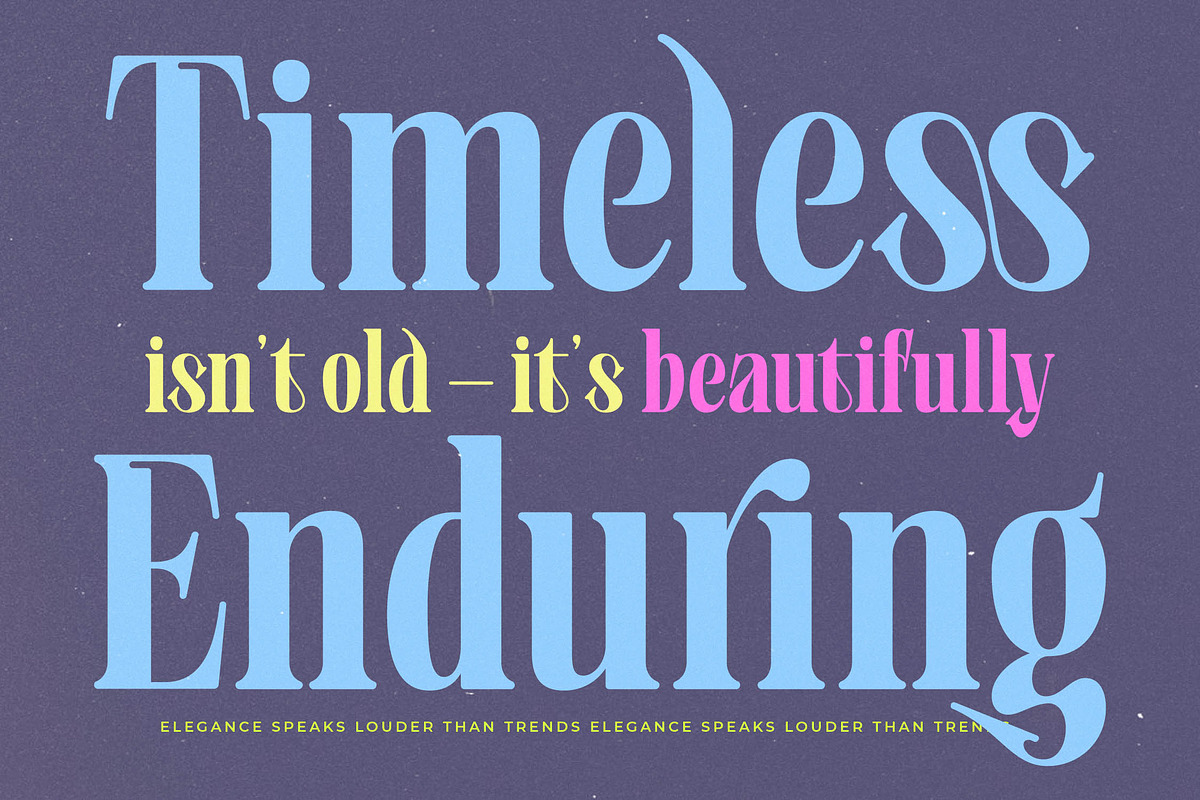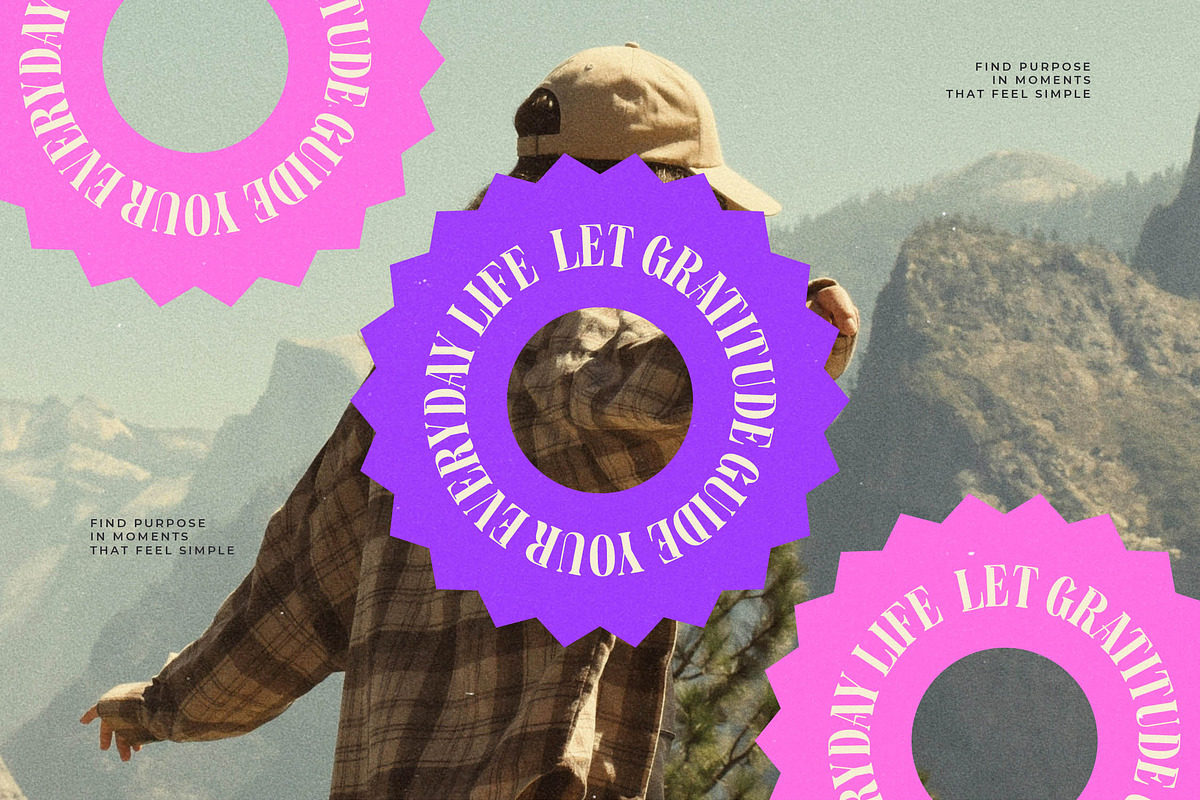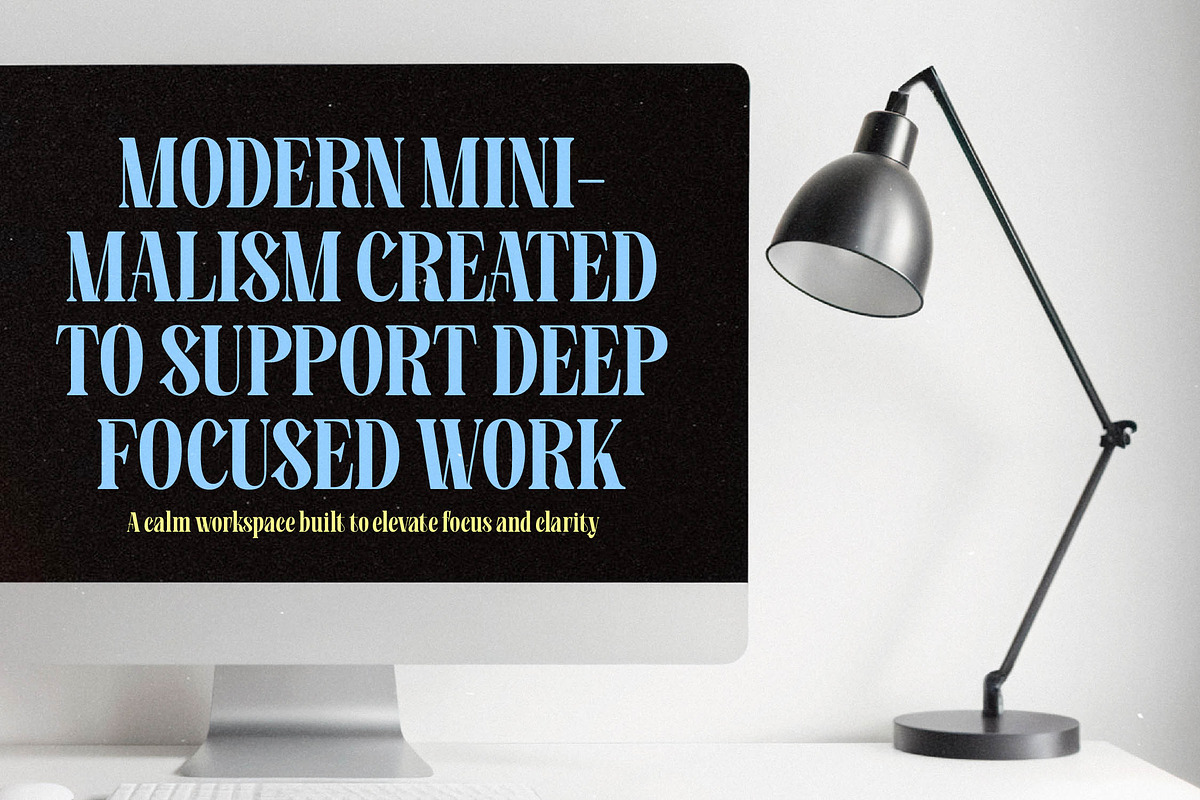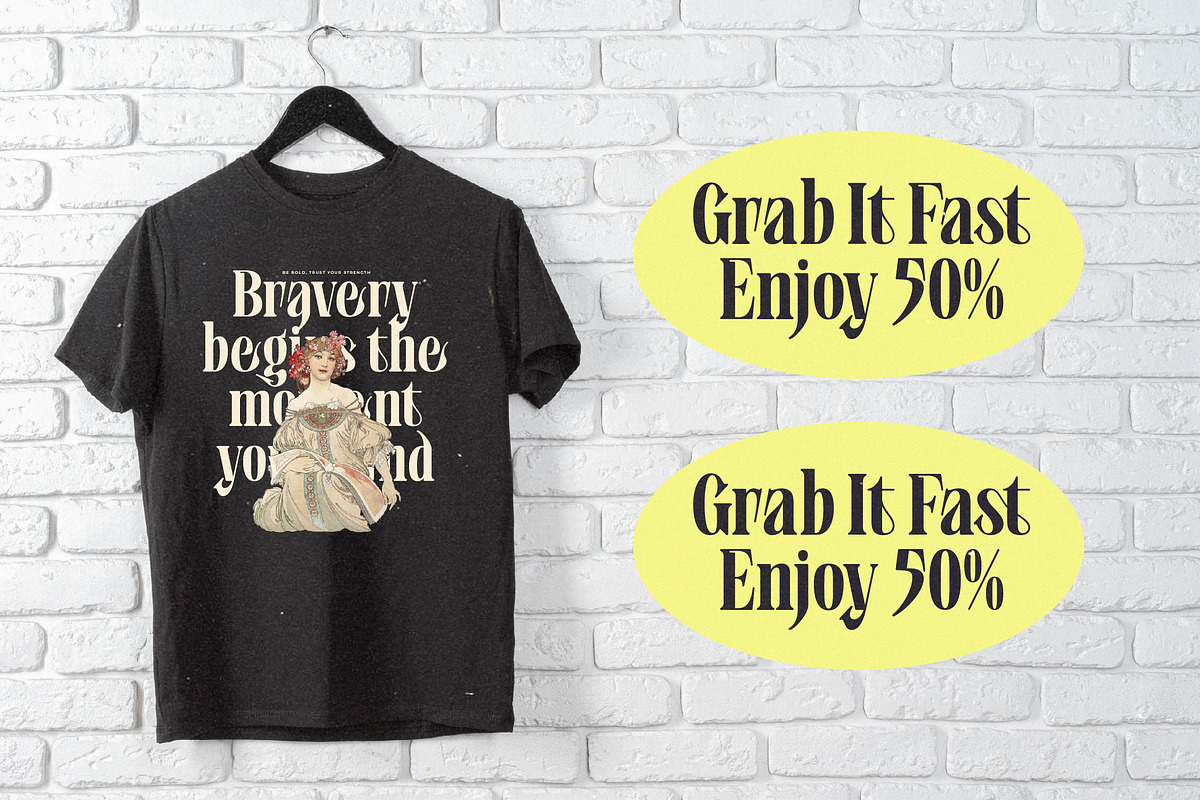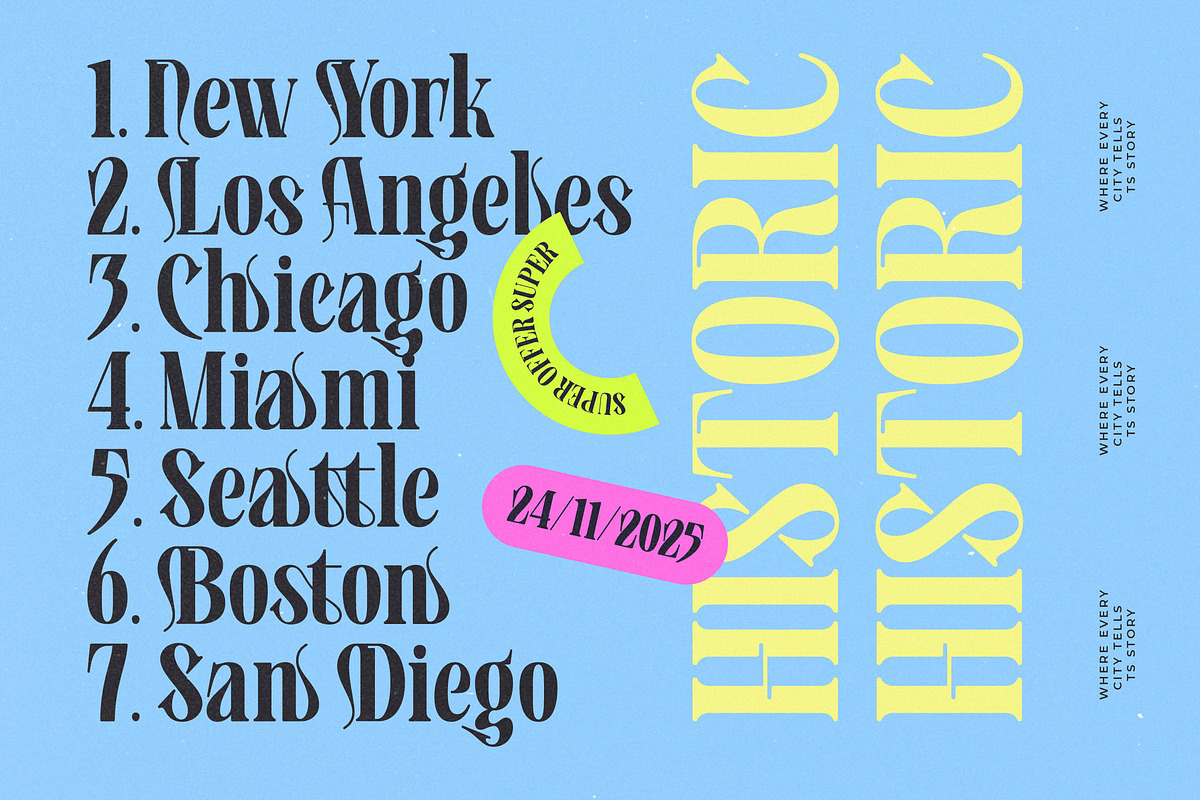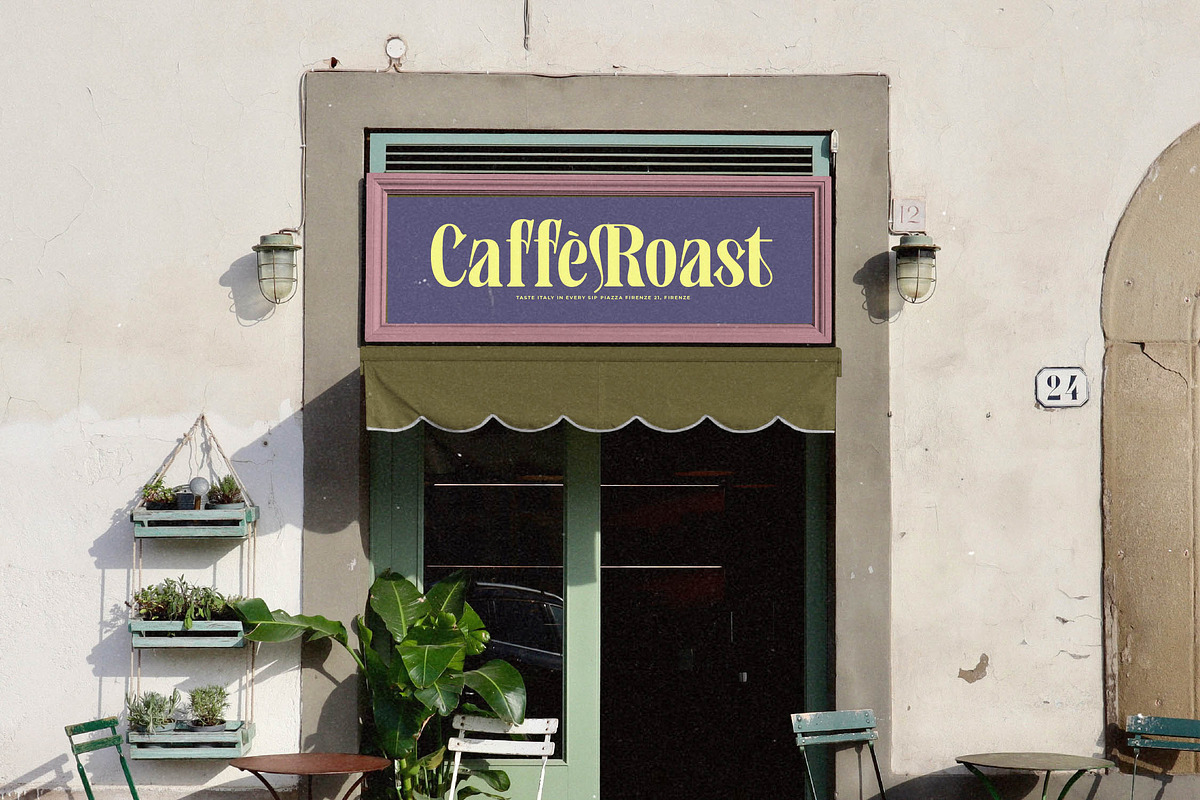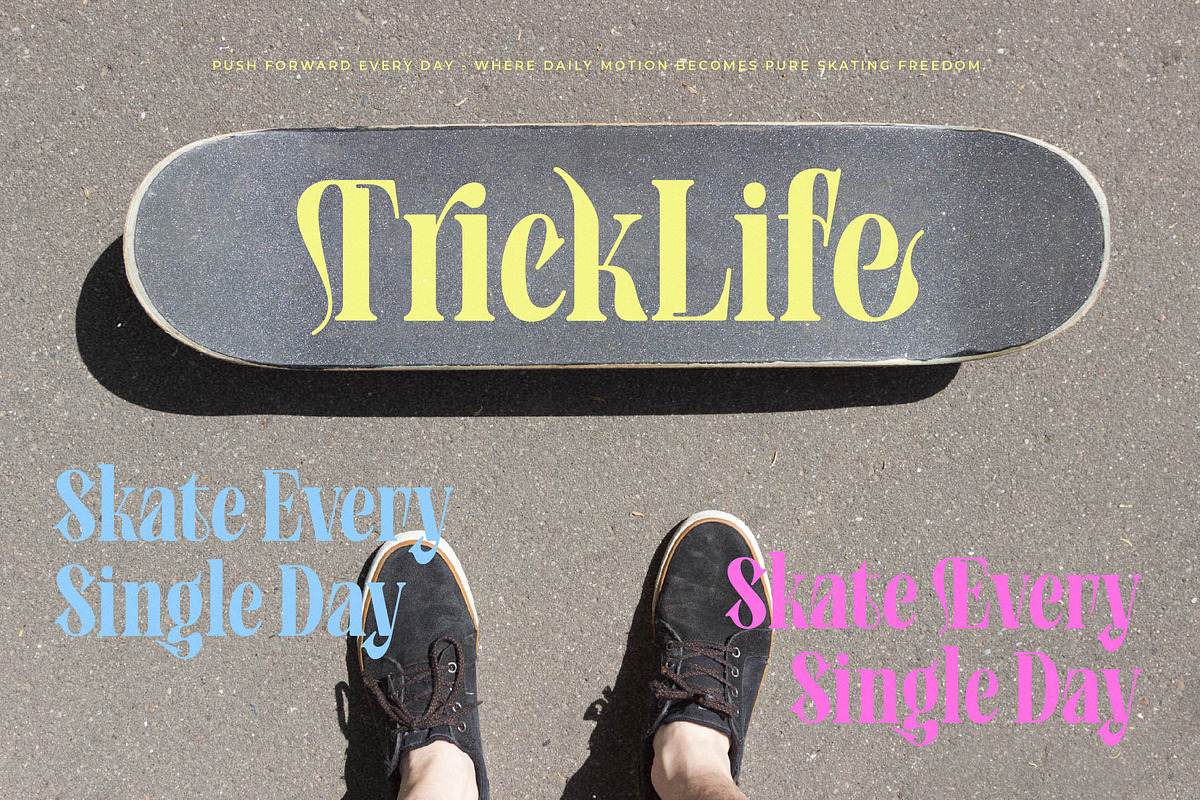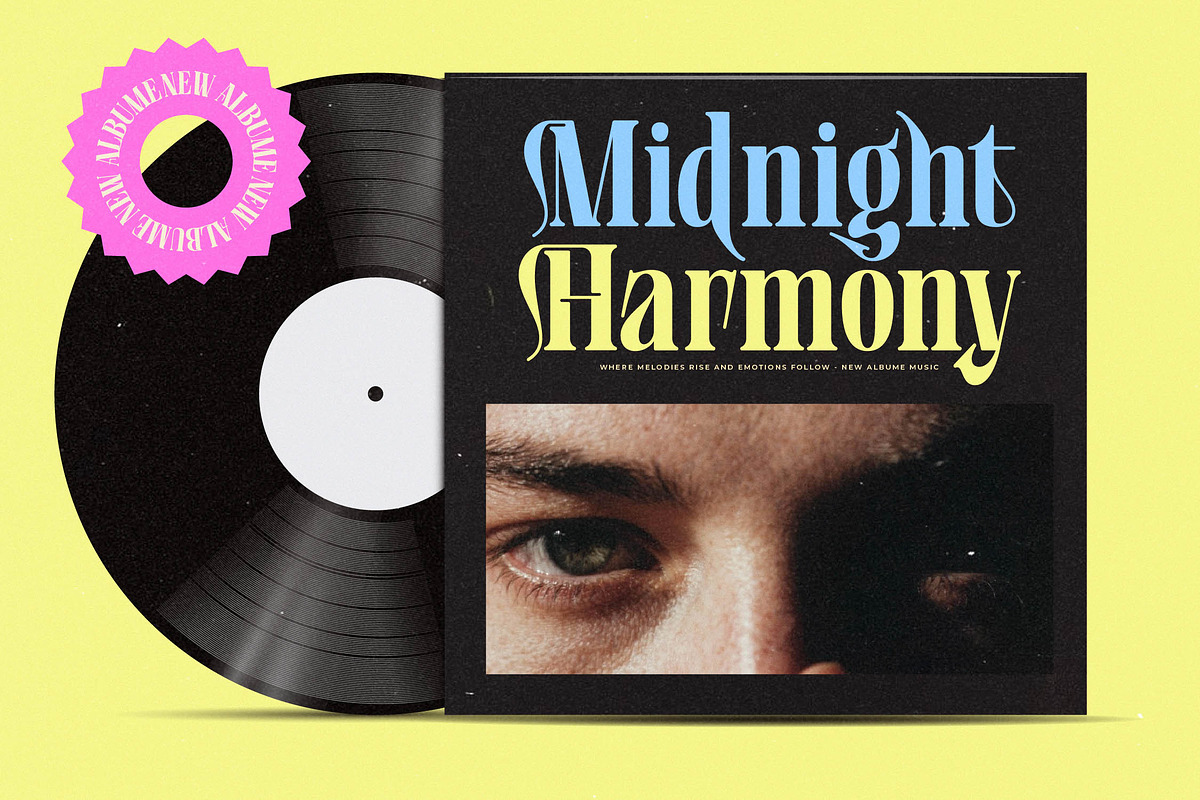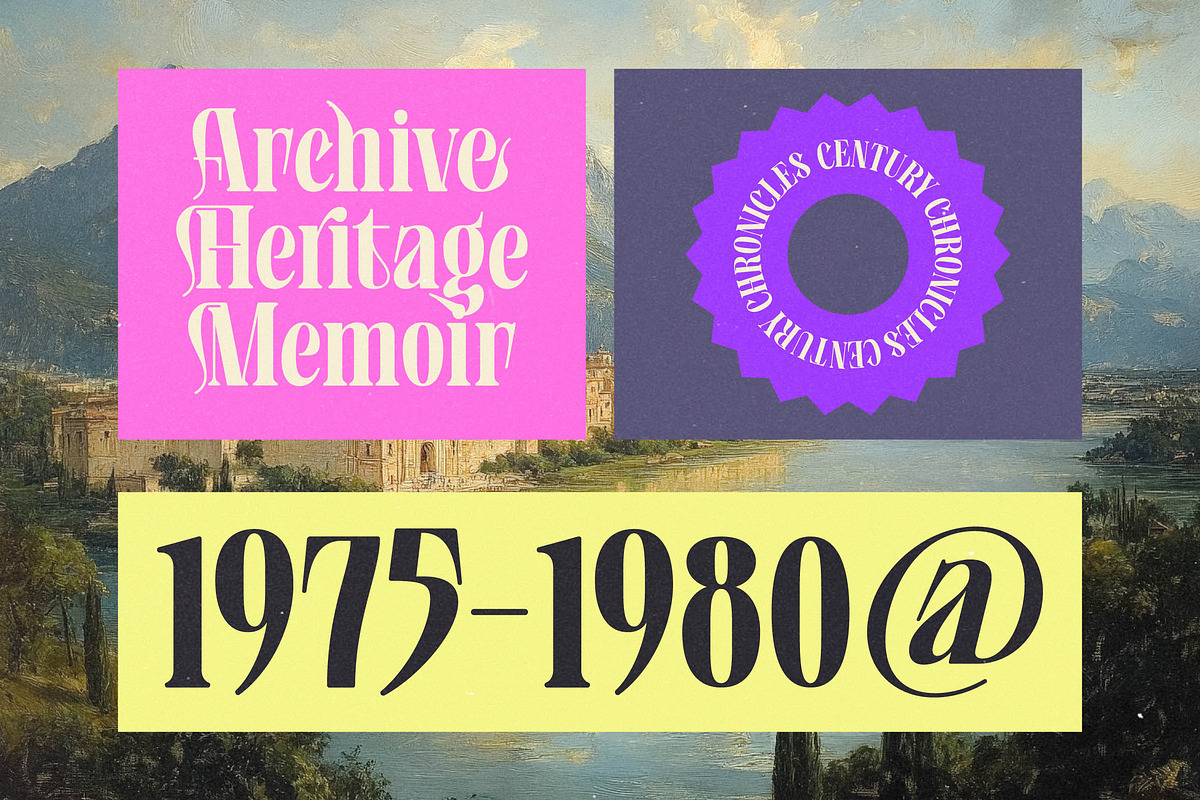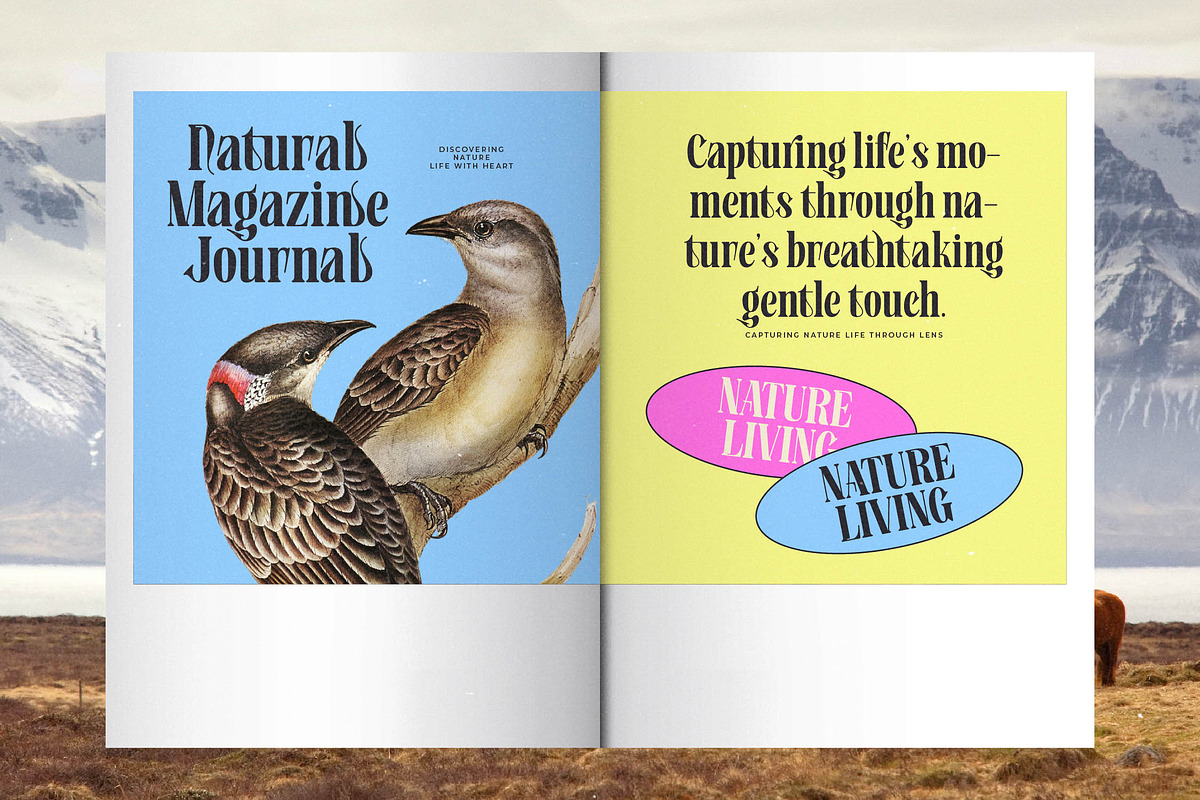
Bistoric Historic Modern Serif
Bistoric Historic invites you into a world where classic elegance meets contemporary flair, offering a visual experience that is as memorable as it is beautiful. This font is a masterclass in balance, blending timeless serif foundations with experimental flourishes that demand attention.
Inspired by the golden era of editorial design and the lush textures of botanical illustrations, this typeface captures a spirit of natural sophistication. It draws from the heritage of high-fashion magazines and the tactile feel of vintage letterpress, creating a bridge between the past and the present.
With its modern serif display aesthetics and high-contrast serif strokes, this font exudes a sense of luxury typography that is perfect for high-end projects. Every character is crafted for branding impact, providing an editorial font solution that speaks with a voice of refined authority and creative confidence.
Perfectly aligned with the modern serif trend, this typeface answers the call for character-driven typography in a sea of minimalism. It sits at the forefront of editorial display fonts, offering designers a tool that is both fashionable and functional for the current market's love for "new vintage" styles.
This versatile typeface is the ultimate choice for logo design, branding, and editorial layouts that require a touch of class. From sophisticated packaging concepts to romantic wedding stationery and high-end fashion lookbooks, it adapts seamlessly to any luxury-focused environment.
The collection includes a vast array of ligatures and alternates that allow for custom typographic compositions. It also features a full set of multilingual support and international characters, ensuring your message can reach a global audience with consistent elegance.
Ligatures and Alternative Style Stylistic Set